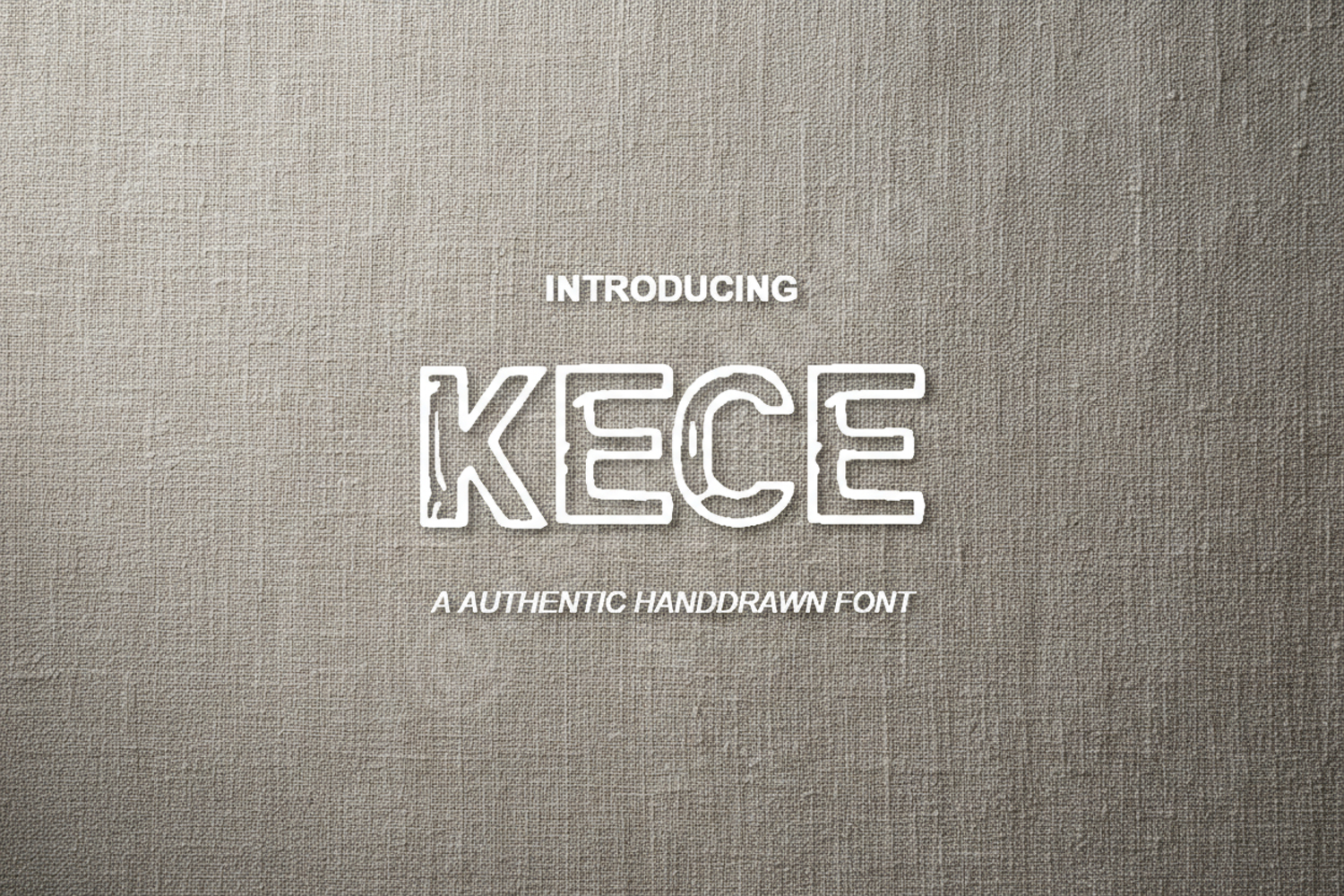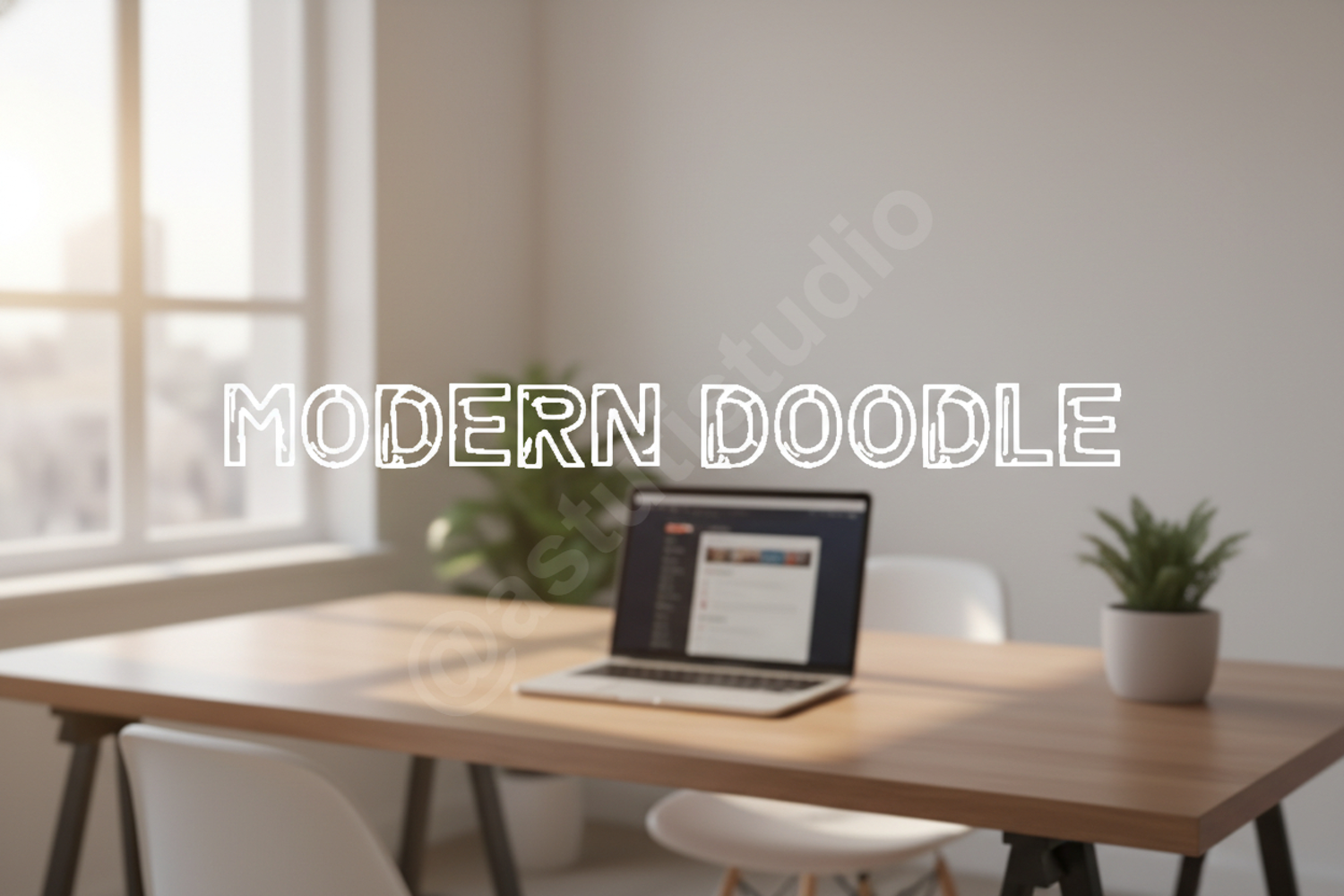
Kece - Modern Chic Sans-Serif Typeface
Kece
Kece is a sophisticated modern sans-serif typeface designed for those who value clean lines and contemporary aesthetics. This font exudes a sense of premium quality, making it the perfect choice for high-end projects that require a touch of professional flair and effortless style. Whether you are creating a minimalist brand identity or a bold editorial layout, Kece provides the versatility needed to make your text stand out.
- Branding and Visual Identity: Create memorable logos and corporate stationary.
- Editorial Design: Perfect for magazine headers, body text, and book covers.
- Social Media: Elevate your Instagram, Pinterest, and marketing graphics.
- Product Packaging: Add a premium touch to labels and boxes.
- Wedding and Event Stationery: Ideal for modern, clean invitation designs.
- Website Typography: Ensure your digital content is legible and stylish.